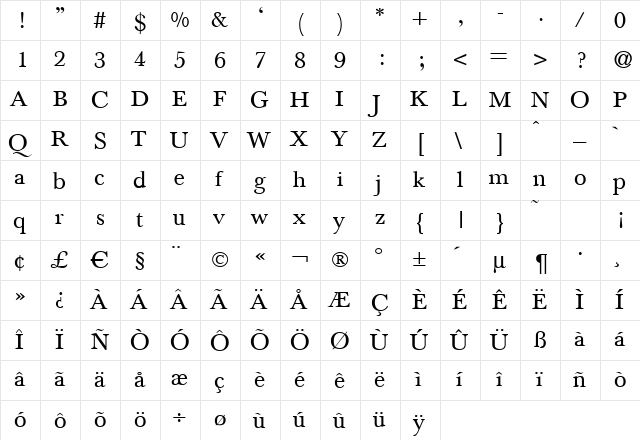
BaskervilleTwo Regular Font Preview
BaskervilleTwo Regular
BaskervilleTwo Regular Font Details
Design Context for BaskervilleTwo Typeface
BaskervilleTwo offers clean, dependable letterforms without strong stylistic allegiance, making it a practical choice for designers who need flexibility.
Pro Tip: Pair BaskervilleTwo with a font of contrasting weight or personality to build a more expressive typographic hierarchy.